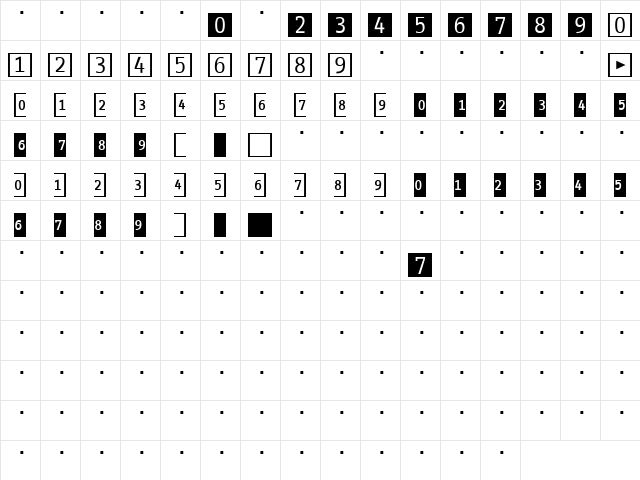
InfoOffice Regular Font Preview
InfoOffice Regular
InfoOffice Regular Font Details
Design Context for InfoOffice Typeface
InfoOffice is a composed and adaptable typeface that performs quietly and consistently across a wide range of design contexts.